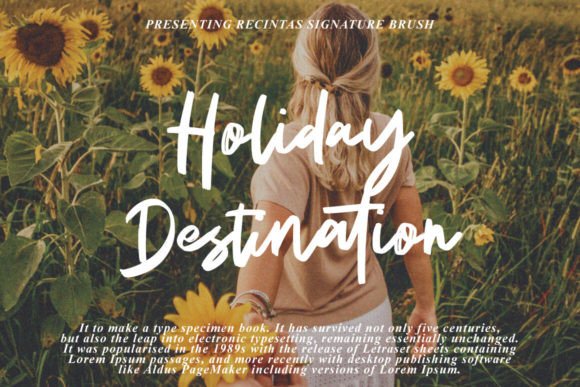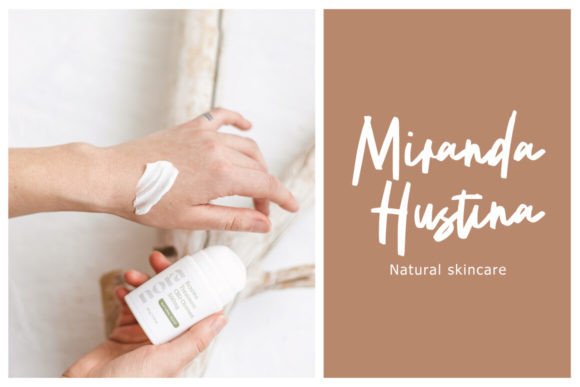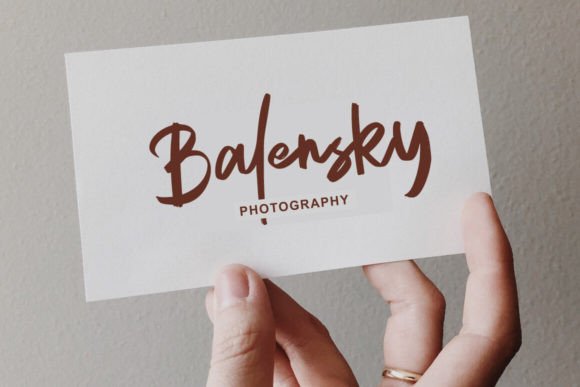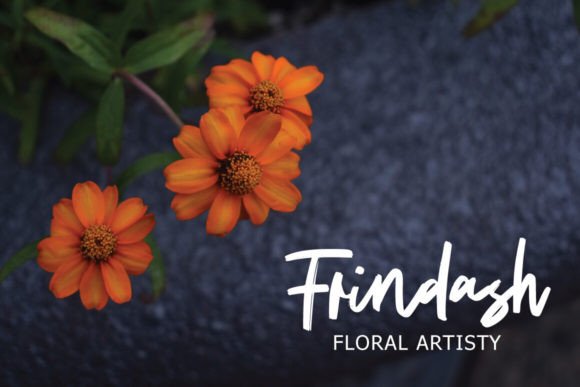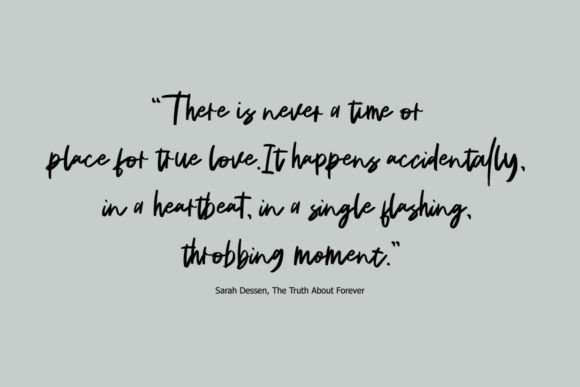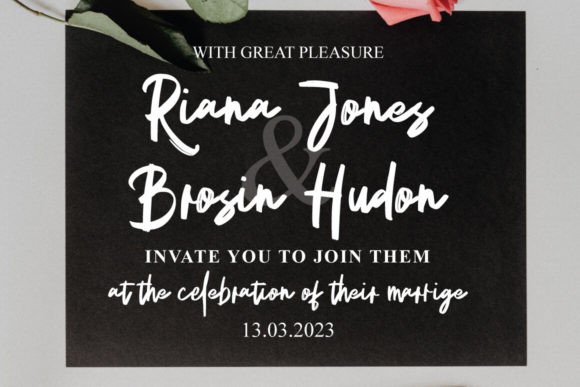
Introduction to Recintas Font Font
Fonts play a crucial role in design, and the Recintas Font font is a typeface that brings both character and versatility to any project. Whether you’re working on a branding project, a website, or a print design, the Recintas Font font offers a unique style that can elevate your work.
Recintas is a fun and quirky handwritten font.
Add it to your creative projects and you will be amazed by the generated outcome .
Key Features of Recintas Font Font
Why Choose Recintas Font Font?
The Recintas Font font is more than just a typeface – it’s a design tool that helps you communicate your message with style and clarity. Its unique character set and versatile design make it suitable for a wide range of applications, from elegant invitations to bold headlines.
With its carefully crafted letterforms and balanced proportions, the Recintas Font font ensures readability and visual appeal across all mediums.
What makes Recintas Font font special?
The Recintas Font font stands out with its unique design, exceptional readability, and versatility across various design applications.